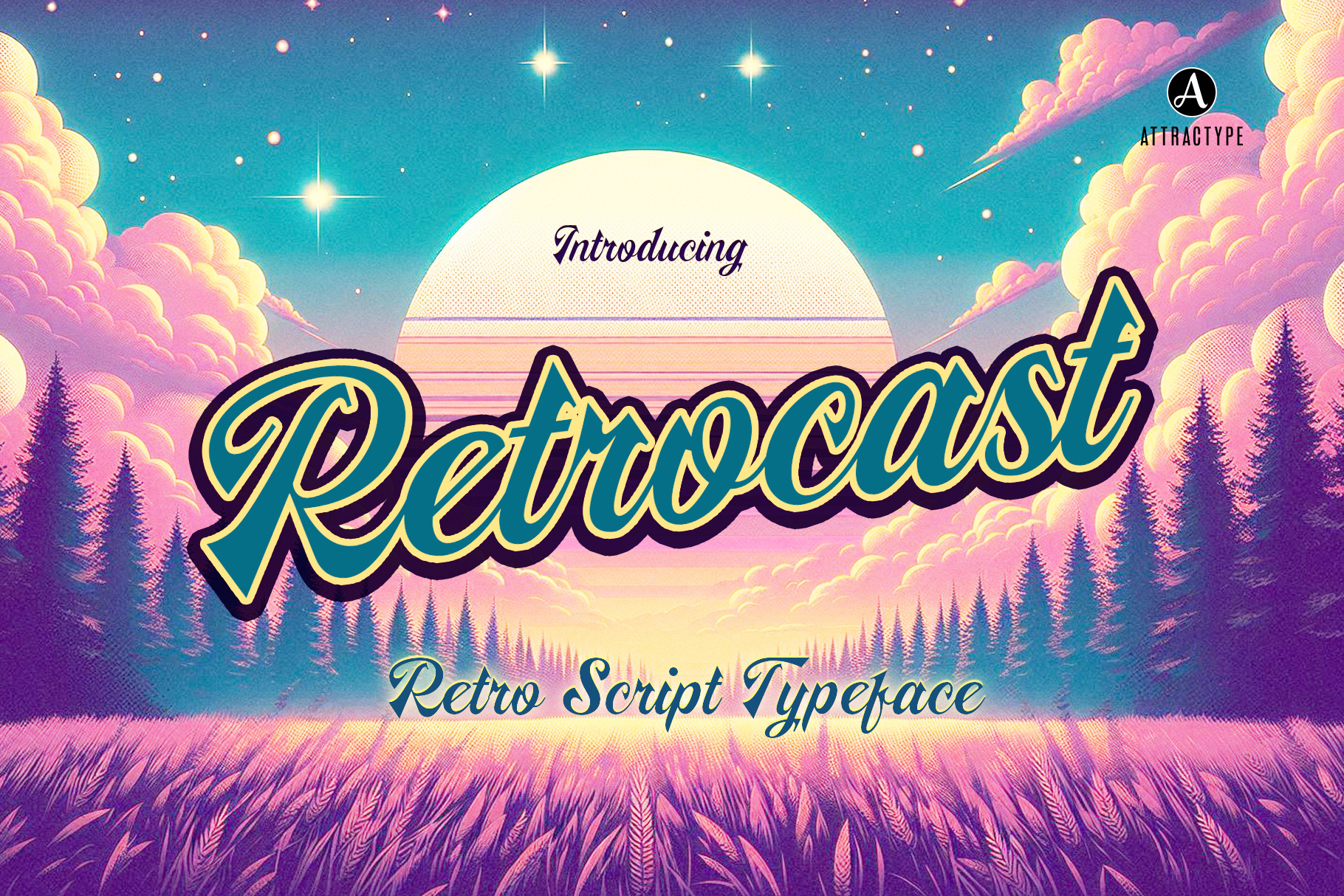
Retrocast - Retro script typeface
Retrocast is a retro vintage font style. This script font is perfect for adding a retro touch to your great designs such as poster designs, magazines, books, social media, logos, stickers, packaging designs, headlines, brand identities, t-shirt or apparel industry, or any other creative design projects while maintaining the beauty and aesthetics.